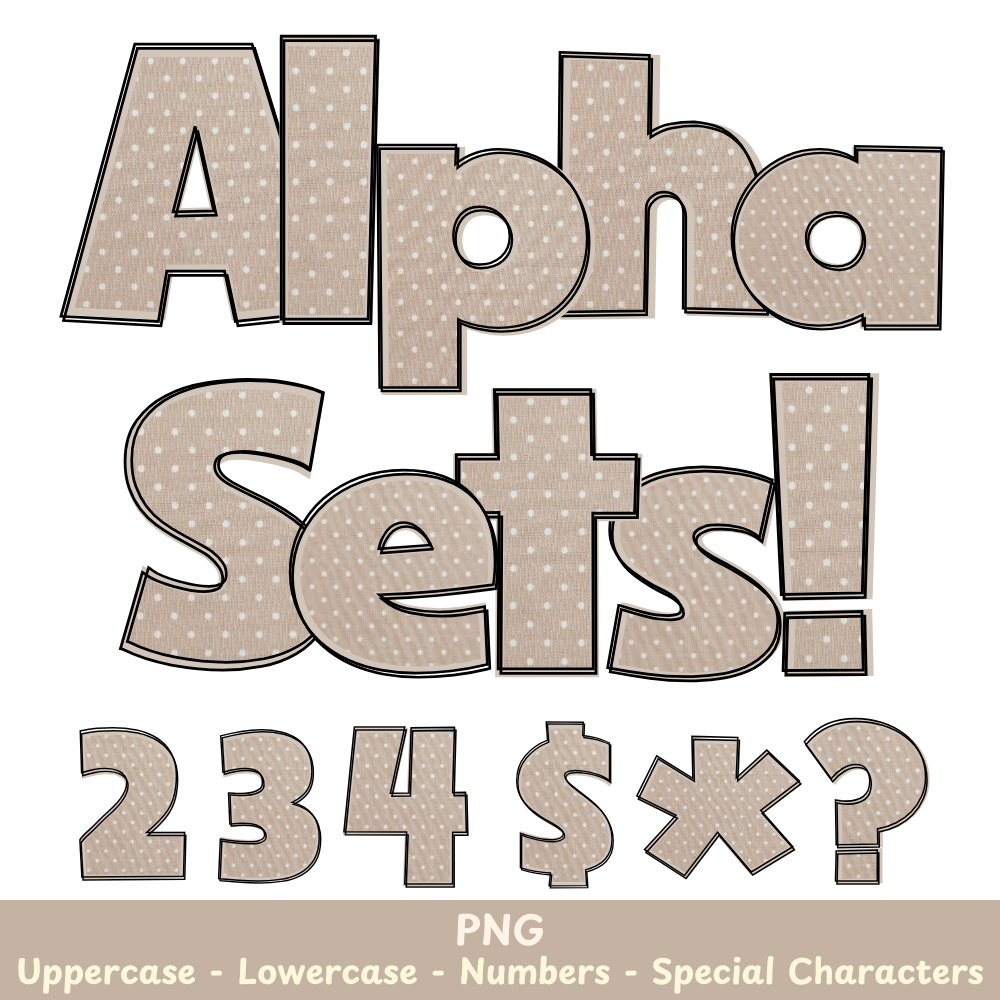
Tan Polka Dots PNG Font
Tan Polka Dots Alpha Set PNG Font Pack
This Tan Polka Dots PNG Font is a versatile addition to your crafting toolkit. With its subtle tan color and playful polka dot pattern, it's perfect for a variety of projects such as sublimation and design work. Add a touch of fun and style to your creations with this high-quality font.